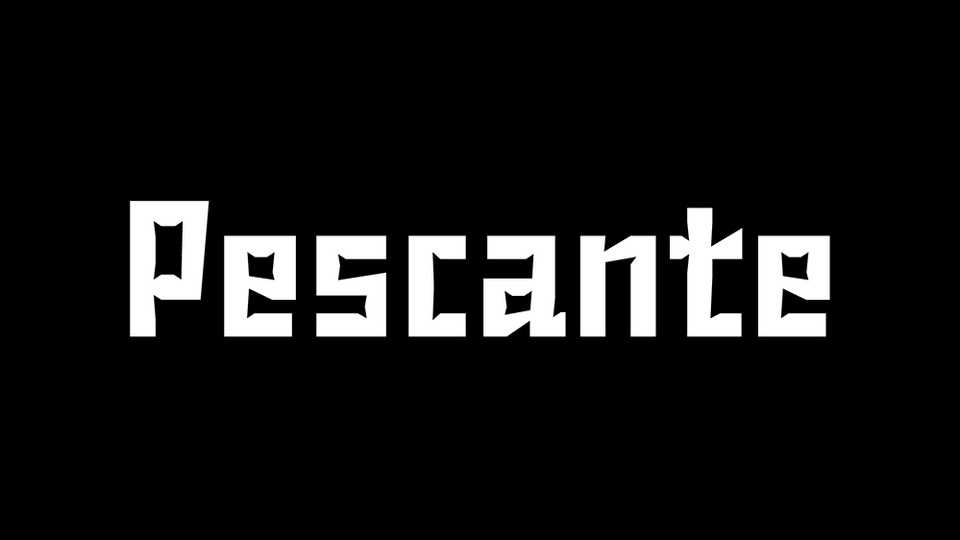
Download Pescante font, a curveless typeface inspired by a lettering piece found on the front of an old warehouse in La Gomera, Canary Islands. Pescante’s design is a reference to geometric letters painted with a flat brush but it also presents some unusual details like cursive letter shapes and dents in the letters’ inner angles.
Designer: Ariel Martín Pérez